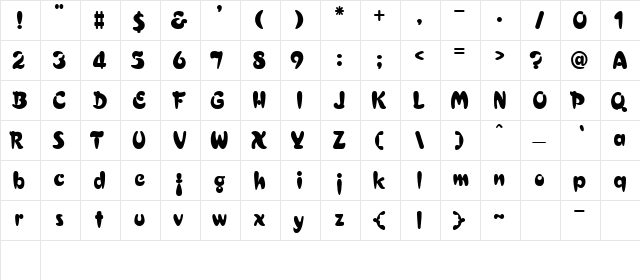
ELAINE Regular
Design Context for ELAINE Typeface
ELAINE is a composed and adaptable typeface that performs quietly and consistently across a wide range of design contexts.